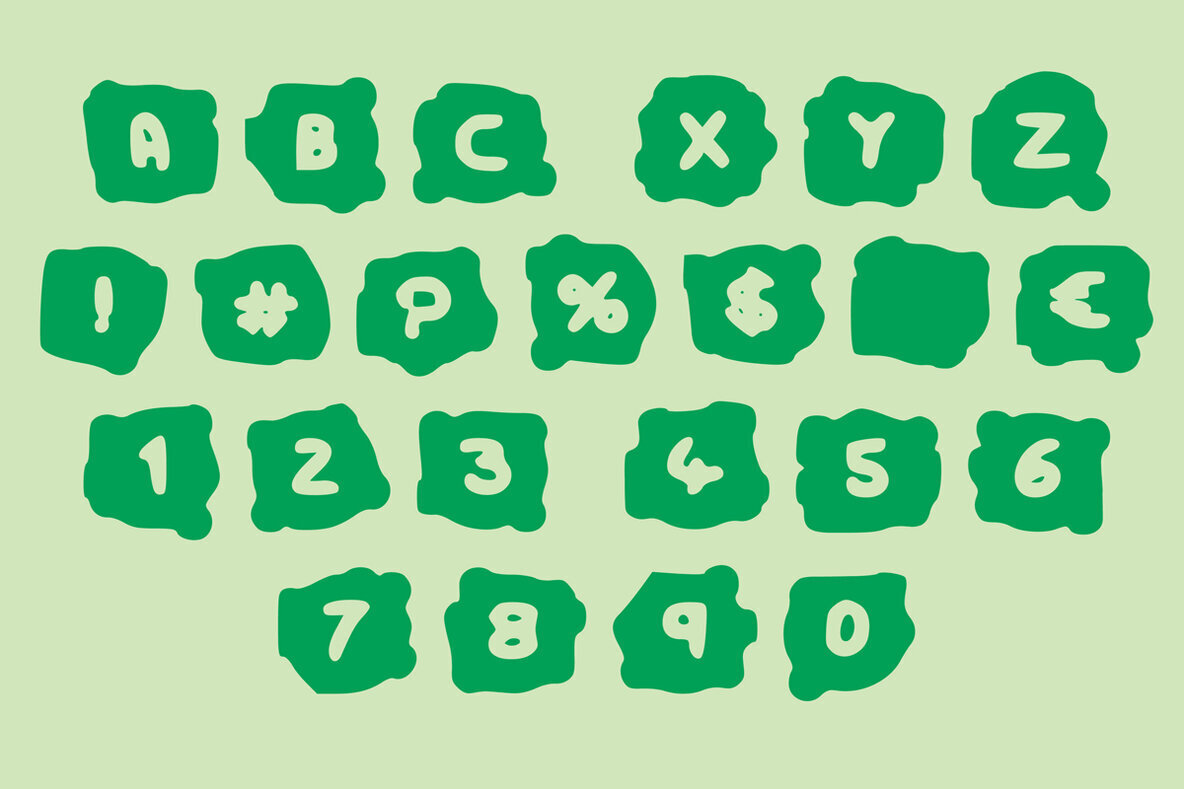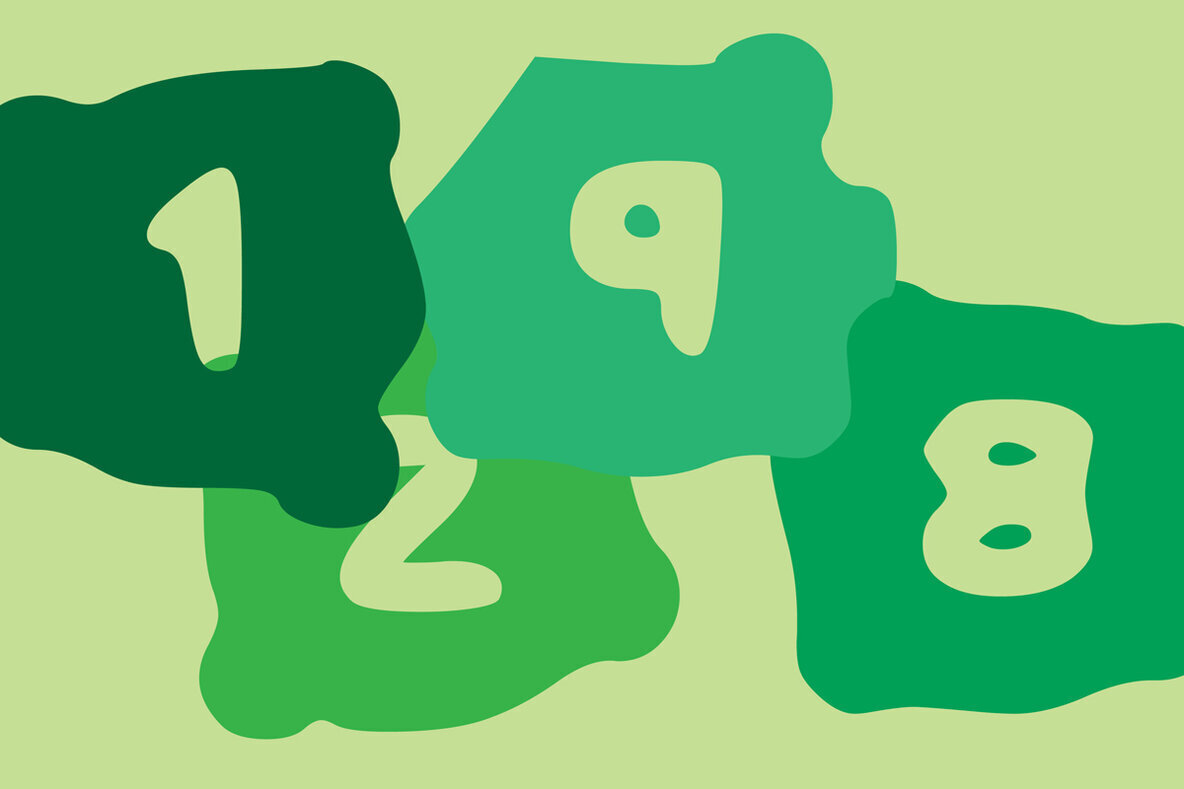
Blob Play Font
Blob Play
Blob Play is a fun and uniquely designed decorative font. Whether you are using it for cartoon-related designs, children games, quotes, titles, brand names, book covers, posters, or just any creation that requires a touch of joy, this font is a great choice.